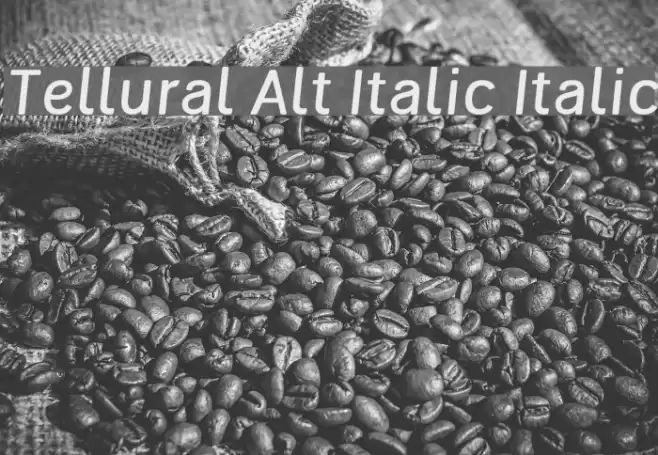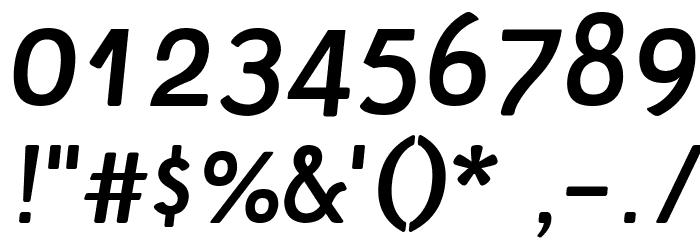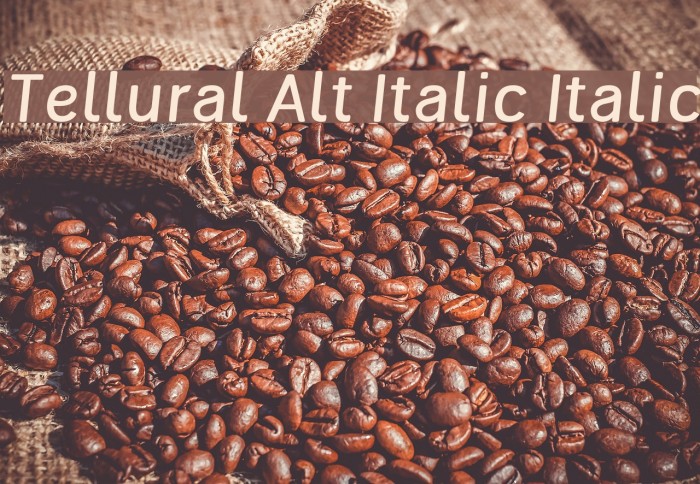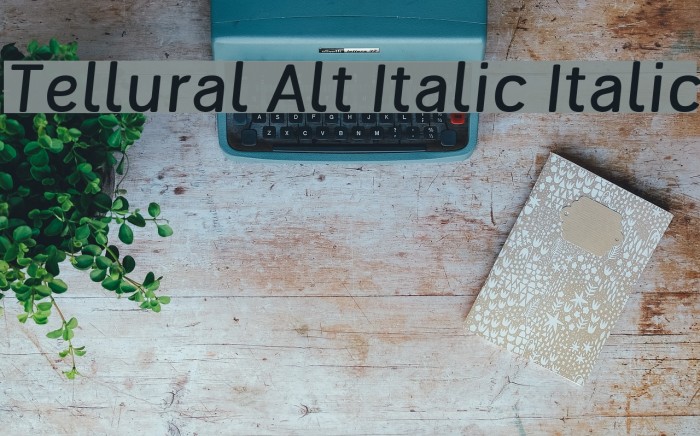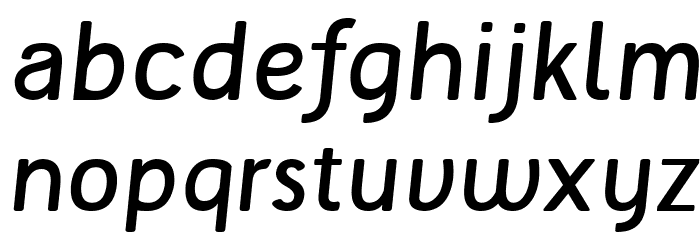
Tellural Alt Italic Italic Font
Tellural Alt Italic Italic Description
This font features a sleek and modern italic style, characterized by its smooth curves and slightly condensed letterforms. The slant adds a dynamic and forward-moving feel, making it suitable for contemporary designs. The uppercase and lowercase letters maintain a consistent style, with rounded edges and a uniform stroke width that provides a clean and polished appearance. The numerals and special characters are well-integrated, ensuring readability and versatility across various applications. The overall design is minimalistic yet expressive, making it an excellent choice for projects that require a touch of elegance and modernity.
A sleek, modern italic font with smooth curves and a dynamic slant from Uncategorized fonts.